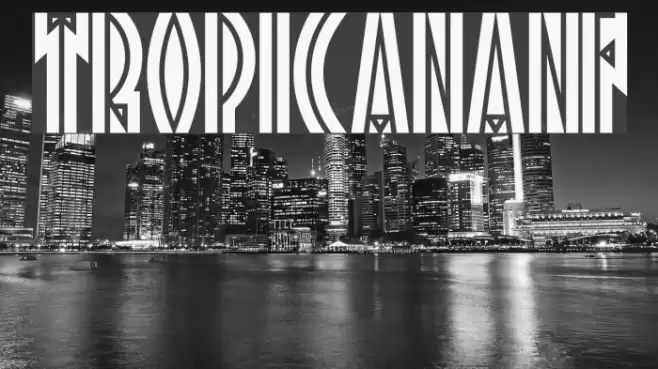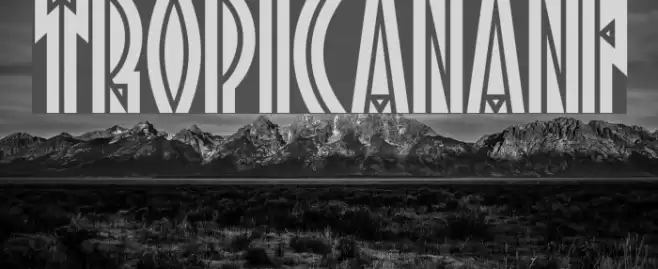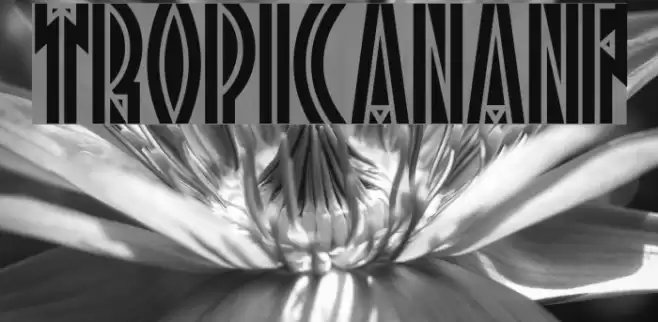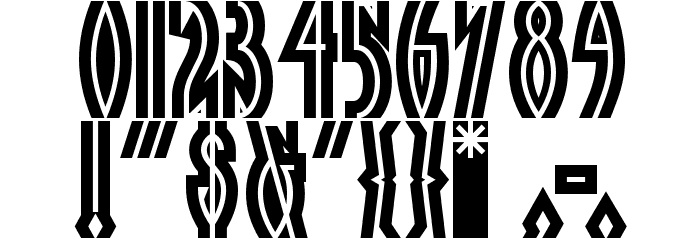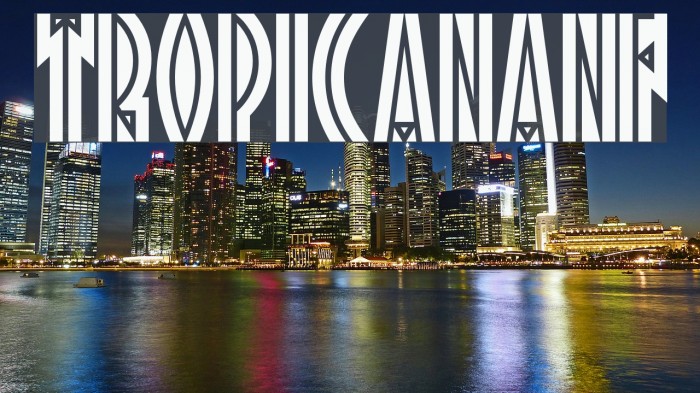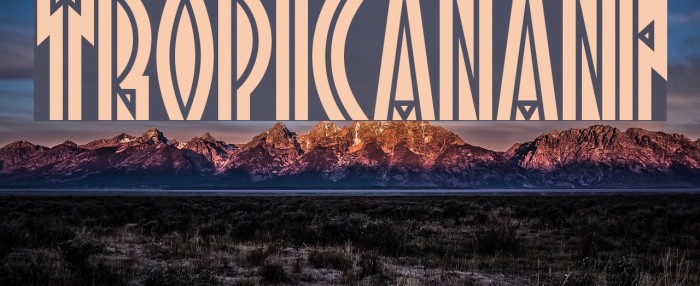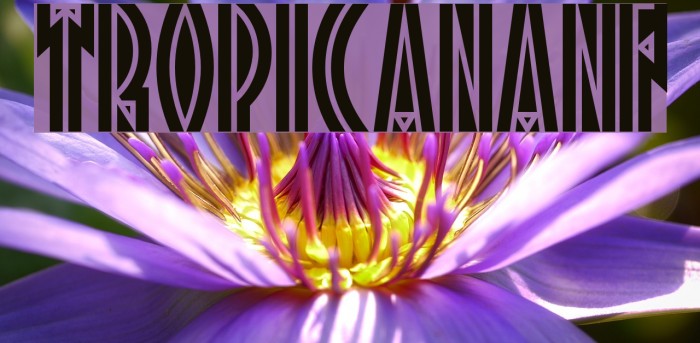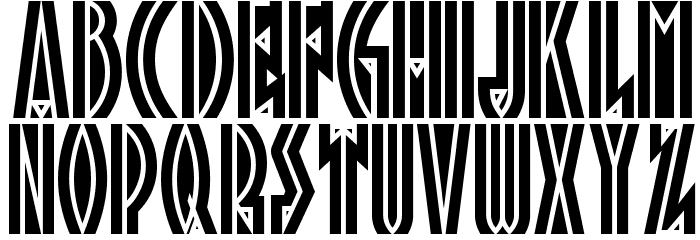
TropicanaNF Font
TropicanaNF Description
This font features a bold and striking design with a strong geometric influence. The characters are tall and narrow, with sharp angles and unique cut-out details that create a sense of movement and energy. The uppercase letters are particularly distinctive, with some characters incorporating triangular notches and pointed serifs that add to the overall dynamic appearance. The numbers and special characters maintain this bold style, ensuring consistency across all elements. This font is ideal for making a statement and capturing attention with its modern and artistic flair.
A bold, geometric font with sharp angles and unique cut-out details.
- Proposed Projects: Ideal for poster design, branding, album covers, and any project requiring a bold, artistic touch.